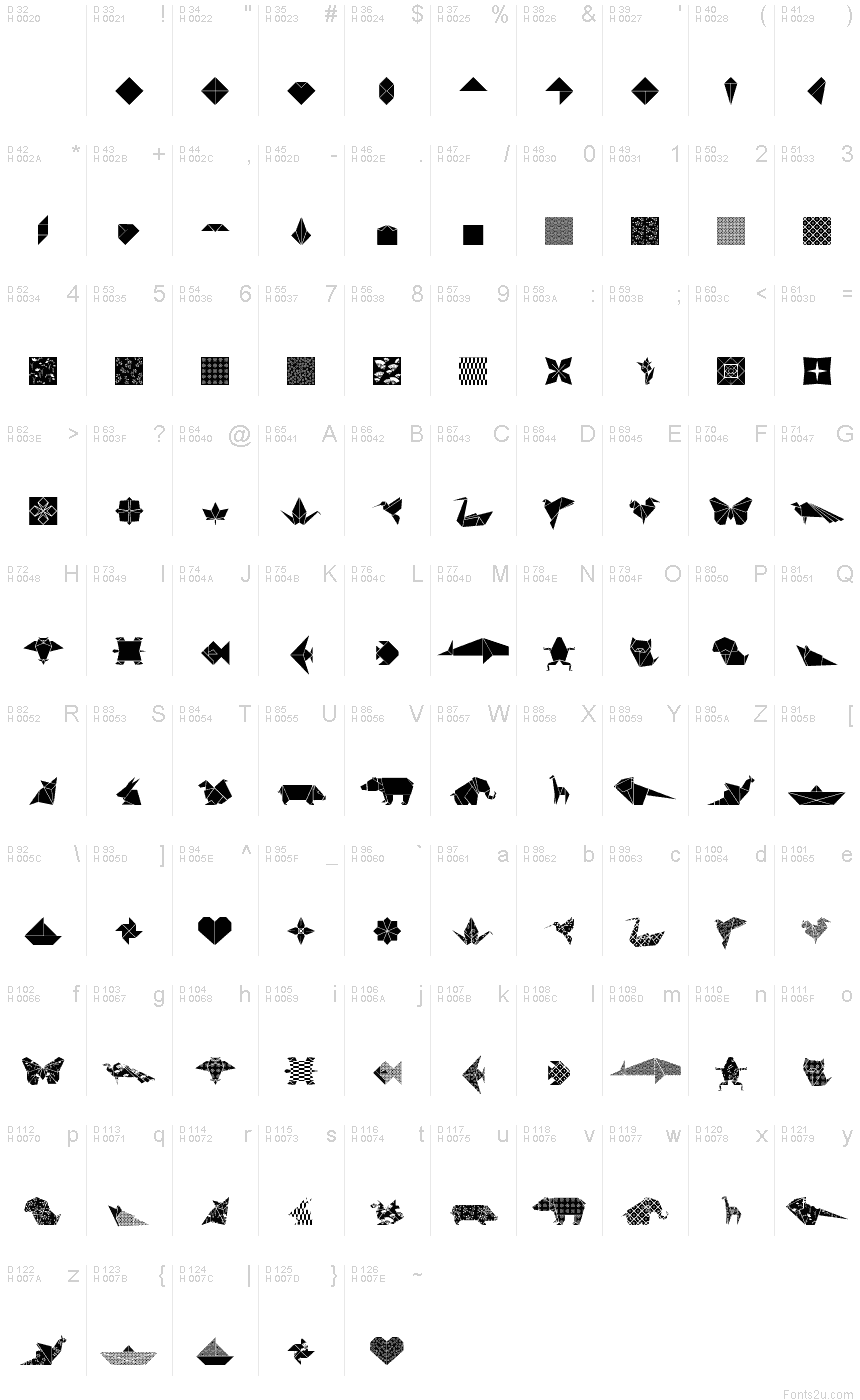
Origami Bats is a free origami animal dingbat font built from angular silhouettes and sharply divided paper facets. Internal crease lines give each figure a folded-paper structure.
The collection can shift between playful children's publishing and darker music artwork because its creatures feel both handmade and slightly mysterious. It also suits game graphics and event posters centered on wildlife, fantasy, or nocturnal themes. The clearest audience is designers seeking animal imagery with the geometry of paper craft rather than soft cartoon drawing.